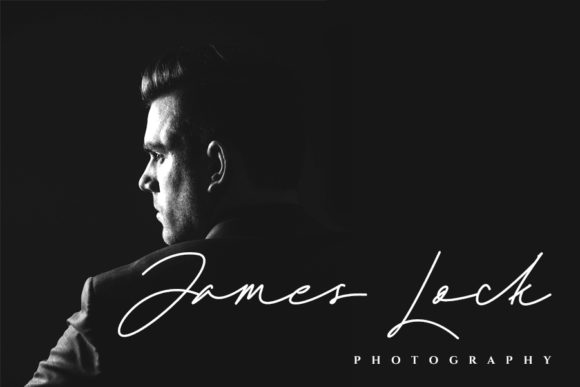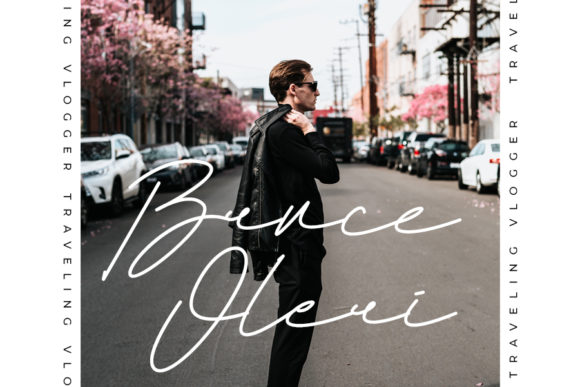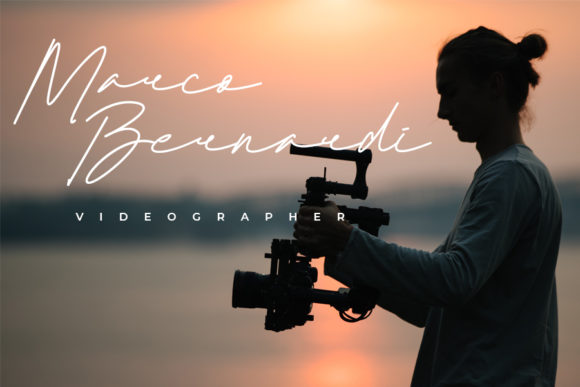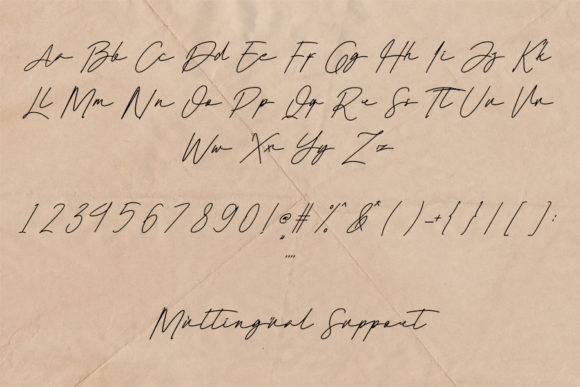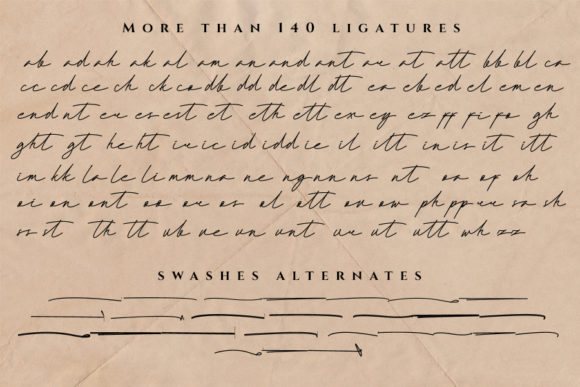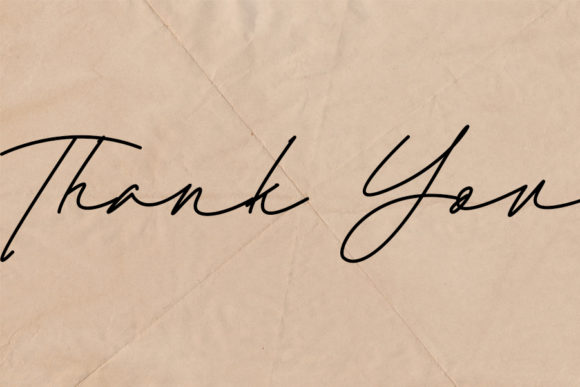
Introducing Datonga Font: Elevate Your Designs with Elegance and Sophistication
In the world of typography, fonts play a crucial role in conveying the tone and personality of a design. For designers and crafters looking to add a touch of romance and sophistication to their projects, Datonga Font is an exceptional choice. This thin and incredibly stylish handwritten font is versatile, making it suitable for a wide range of applications, from greeting cards to headlines.
Unleash Your Creativity with Datonga’s Versatility
Datonga Font is a script font that boasts a unique blend of elegance and charm. Its thin strokes and fluid connections make it perfect for designs that require a personal touch. Whether you’re working on a wedding invitation, a branding project, or a social media graphic, Datonga is guaranteed to add a romantic feel that will captivate your audience.
One of the standout features of Datonga Font is its PUA (Private Use Area) encoding. This means that you can access all the glyphs and swashes with ease, giving you greater flexibility and creative control over your designs. With PUA encoding, you can effortlessly navigate through the font’s extensive character set, including alternates, ligatures, and swashes, to create stunning and unique typography.
Applications of Datonga Font
The versatility of Datonga Font makes it suitable for a wide range of applications, including:
- Greeting Cards: Add a personal touch to your greeting cards, invitations, and thank-you notes with Datonga’s elegant script.
- Headlines and Titles: Make a statement with Datonga’s stylish and sophisticated font, perfect for headlines, titles, and taglines.
- Branding and Packaging: Elevate your brand’s visual identity with Datonga’s unique and captivating typography.
- Social Media Graphics: Stand out on social media with Datonga’s beautiful and eye-catching font, perfect for graphics, quotes, and promotions.
Tips for Using Datonga Font Effectively
To get the most out of Datonga Font, here are some tips to keep in mind:
- Pair with contrasting fonts: Combine Datonga with a contrasting font to create visual interest and hierarchy in your design.
- Experiment with swashes: Take advantage of Datonga’s swashes to add a touch of elegance and sophistication to your design.
- Use for emphasis: Use Datonga to draw attention to specific elements in your design, such as headlines or calls-to-action.
Datonga Font is a stunning and versatile script font that is sure to elevate your designs with its elegance and sophistication. With its PUA encoding and extensive character set, Datonga offers endless possibilities for creative expression. Whether you’re a designer, crafter, or DIY enthusiast, Datonga Font is an excellent choice for adding a romantic touch to your projects. So why wait? Get creative with Datonga Font today and take your designs to the next level!